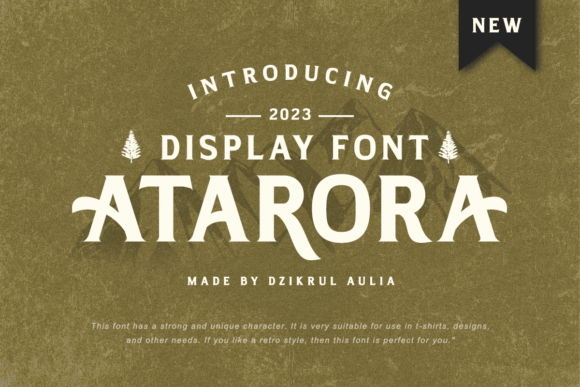
The Quest for the Perfect Font: Discovering Atarora
I still remember the design project that led me to discover the Atarora font. I was working on a vintage-style motorcycle gang apparel design, and I was struggling to find the perfect font that captured the essence of adventure and rebellion. The client wanted a font that would make their jackets, helmets, and other designs stand out, but I was coming up short. That was when I stumbled upon Atarora, a display font that would change the game for me and my design projects.
What Makes Atarora Special?
Atarora is a display font that embodies a unique blend of vintage and retro styles, inspired by the adventurous spirit of motorcycle gangs. Its characters are carefully crafted to evoke a sense of freedom and boldness, making it perfect for designs that require a statement piece.
Honest Review: The Good and the Quirks
Here’s what I love about Atarora:
- ✨ Unique character designs that add a touch of personality to any design
- ✅ Perfect for vintage-style designs, apparel, and accessories
- 💥 Highly legible, even at larger font sizes
And here are some minor quirks to consider:
- 🤔 Limited use for body text due to its display font nature
- Experiment with OpenType features, such as stylistic alternates, to add visual interest to your design
- Explore the font’s glyphs and OpenType features to create unique and complex designs
- Use the font’s stylistic alternates and glyphs to add visual interest to your documents
The Designer Inspiration Behind Atarora
The story behind Atarora’s design is one of creativity and inspiration. According to its creator, Atarora was born out of a passion for vintage motorcycles and the adventurous spirit of those who ride them. The designer wanted to capture the essence of freedom and rebellion in a font that would inspire designers to create bold and eye-catching designs.
| Font Name | Atarora Font |
| Author | Dzikrulauliaart |
| What is Atarora font best used for? | Atarora font is best used for designs that require a bold, vintage, and retro style, such as apparel, vintage-style jackets, helmets, and other accessories. |
| Does Atarora support OpenType features? | Yes, Atarora supports OpenType features, including stylistic alternates and glyphs. |